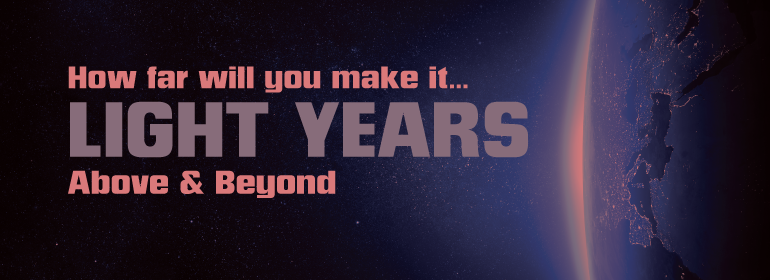
Neographik™
Neographic is one of the first fototype fonts that had been designed by Robert Barbour and produced from the Monotype UK office for the Photolettering machine